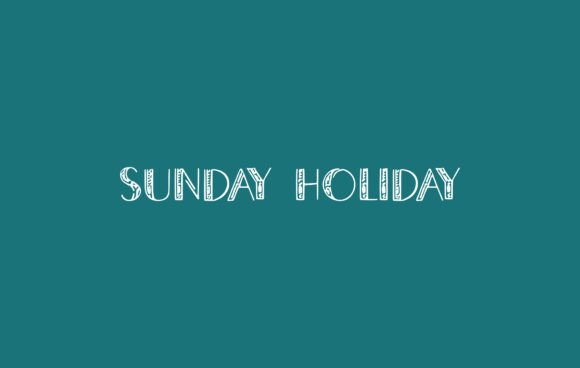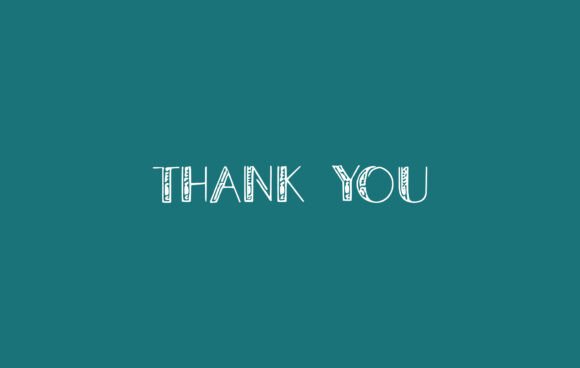
Introduction to Jazmine Font
Jazmine font is an authentic handwritten font with a romantic touch.
Key Features of Jazmine Font
Why Choose Jazmine Font?
Jazmine Font offers exceptional quality and versatility, making it a valuable addition to your design toolkit. Whether you’re creating for personal projects or commercial use, Jazmine Font delivers professional results.